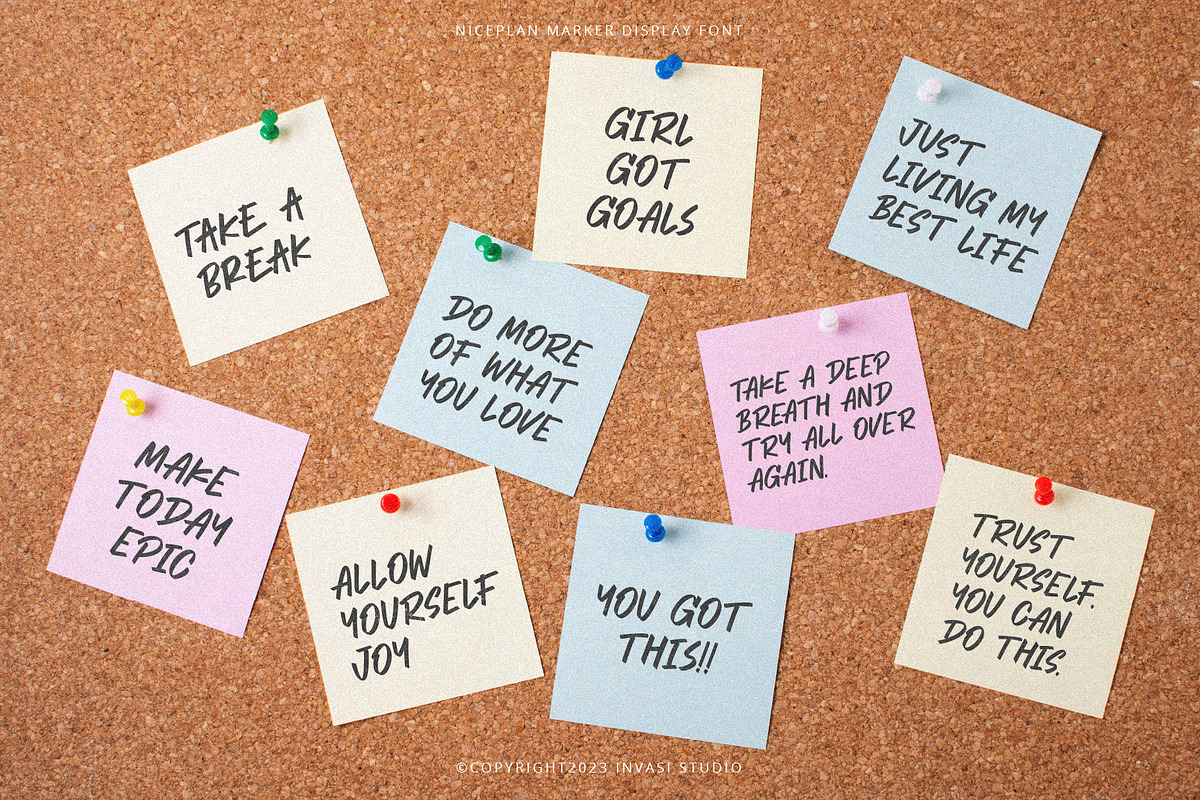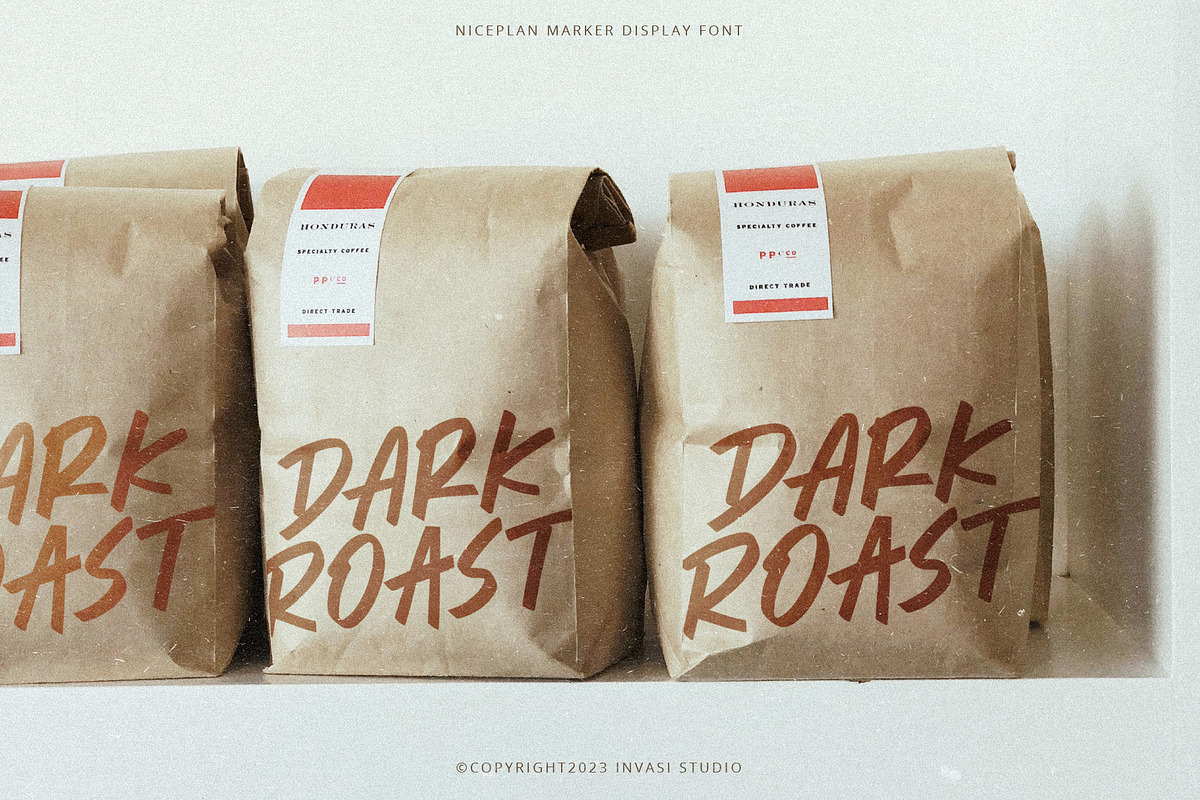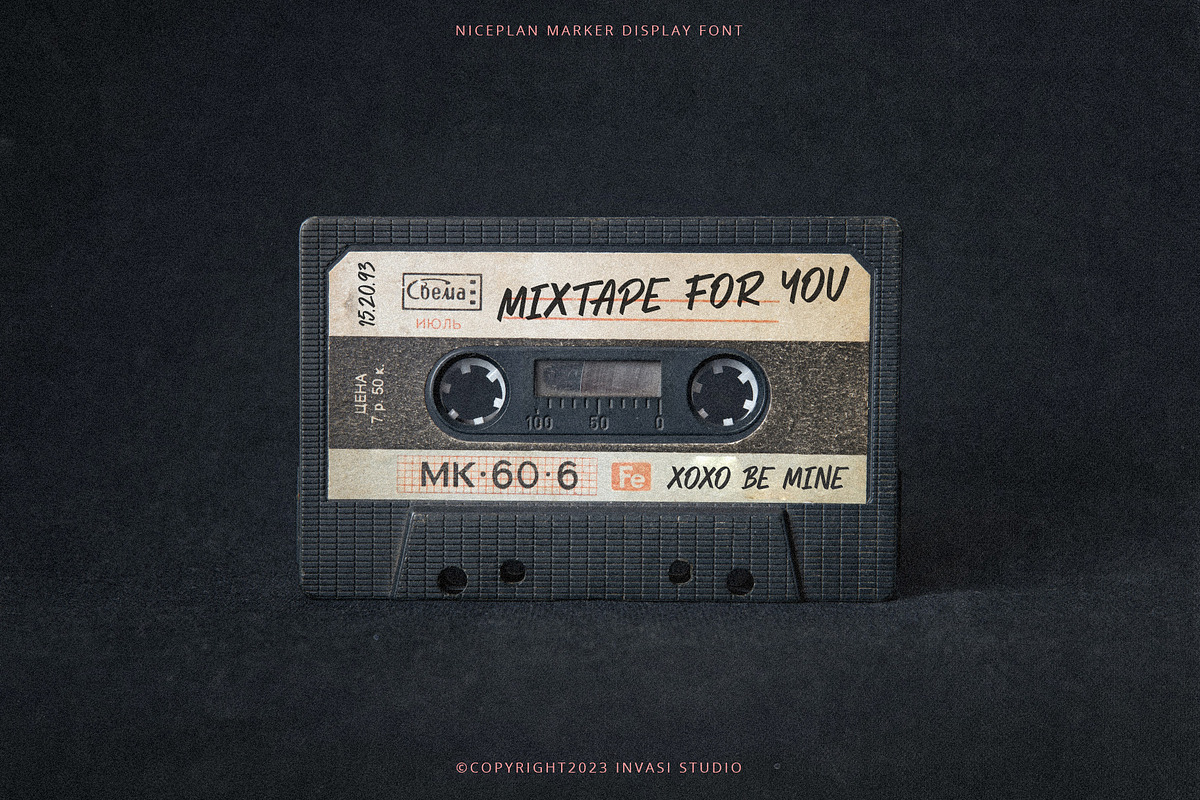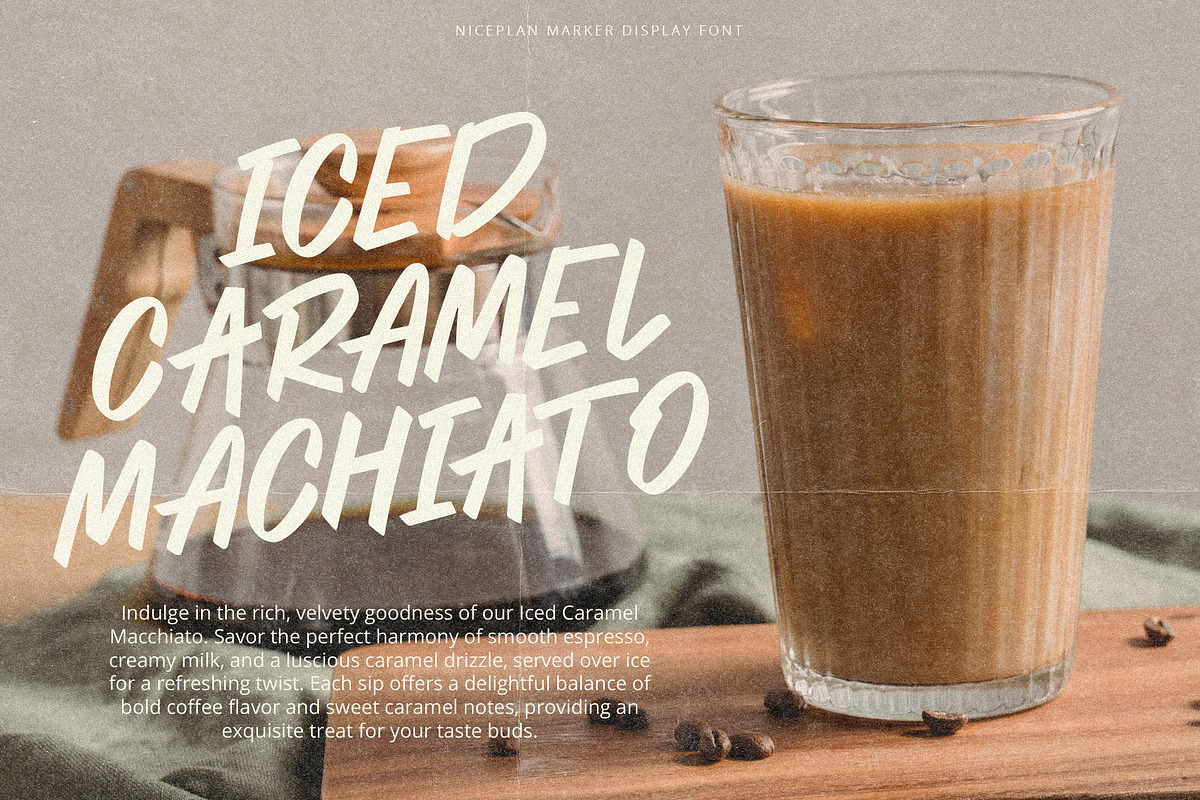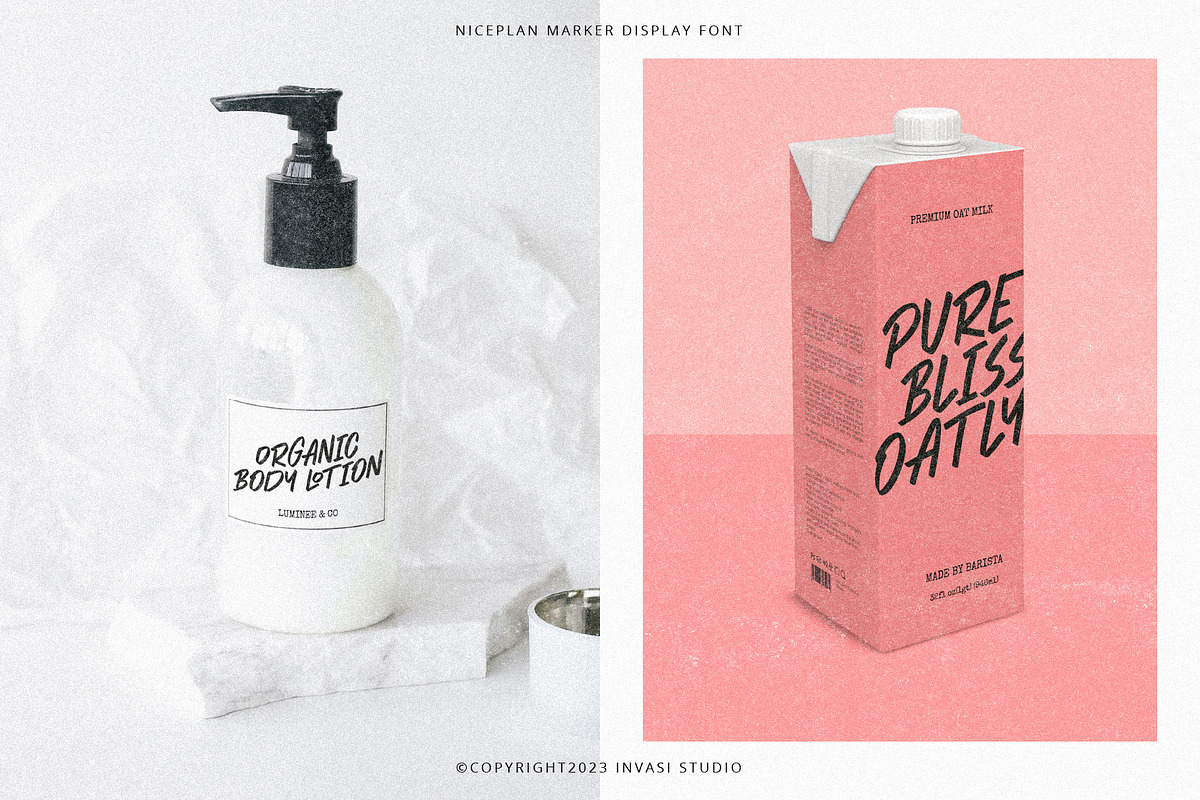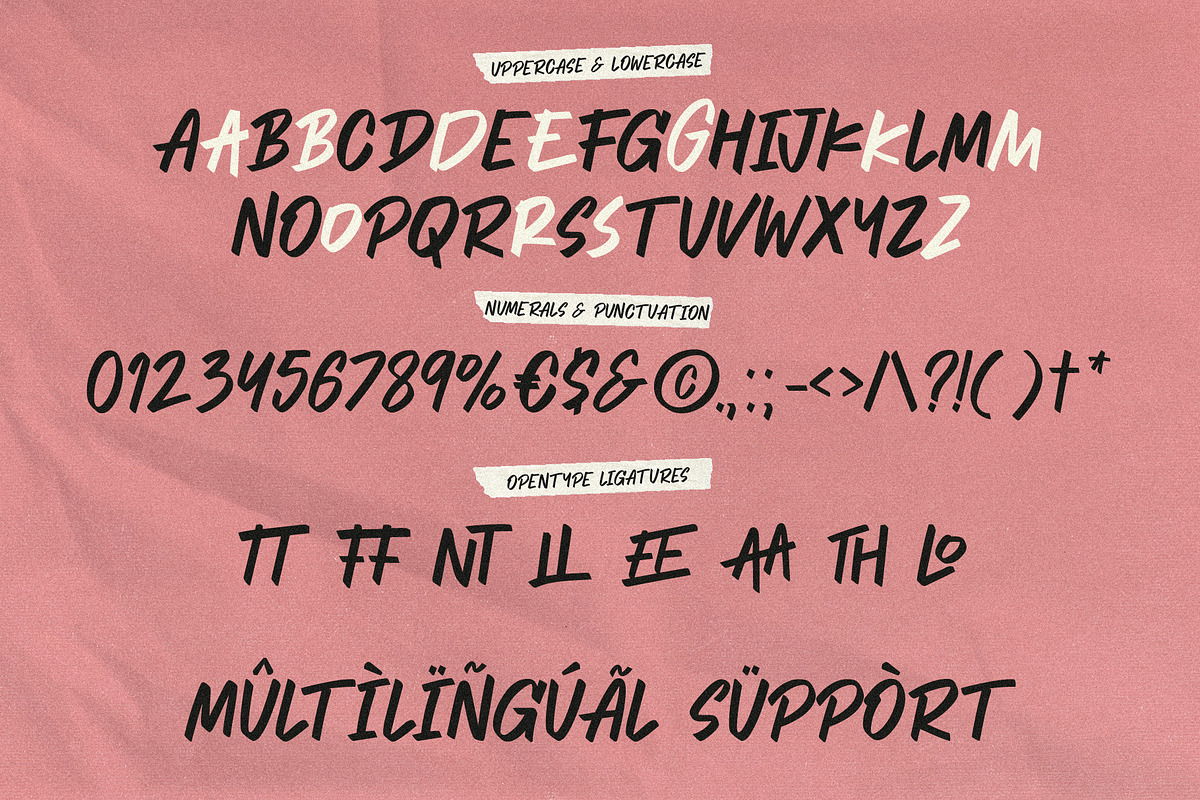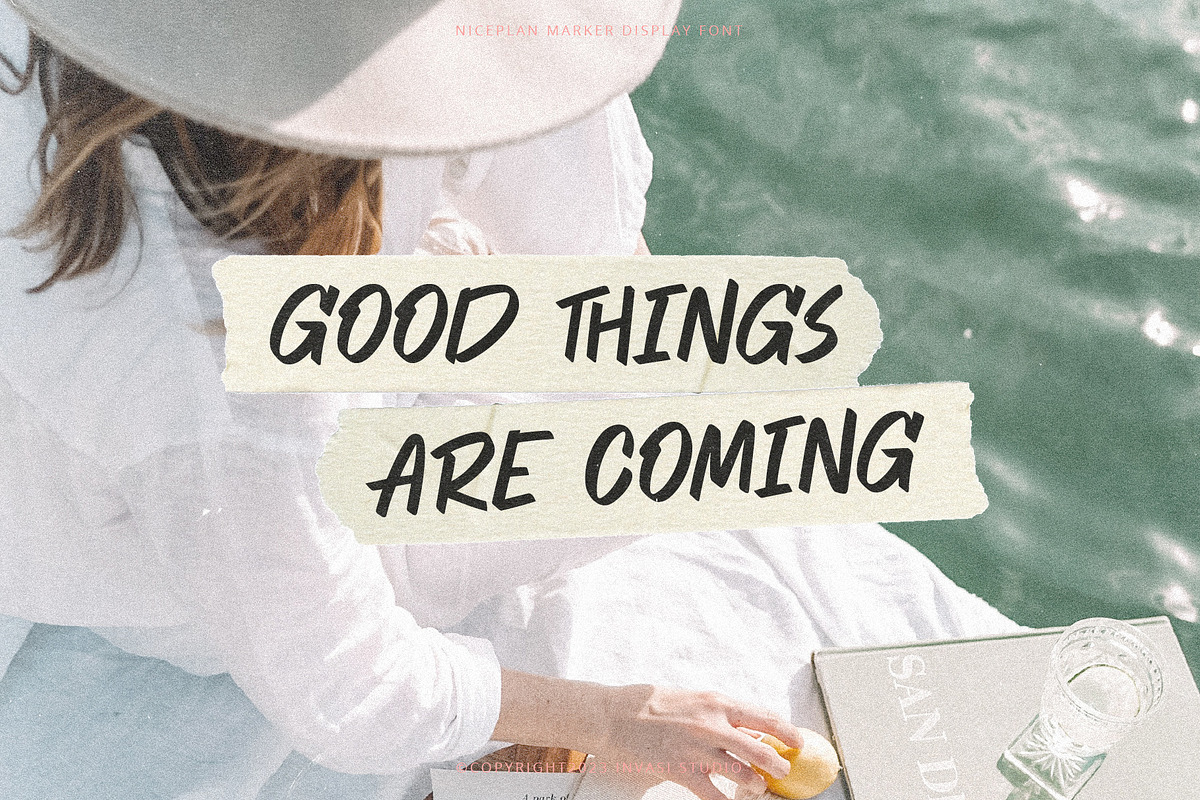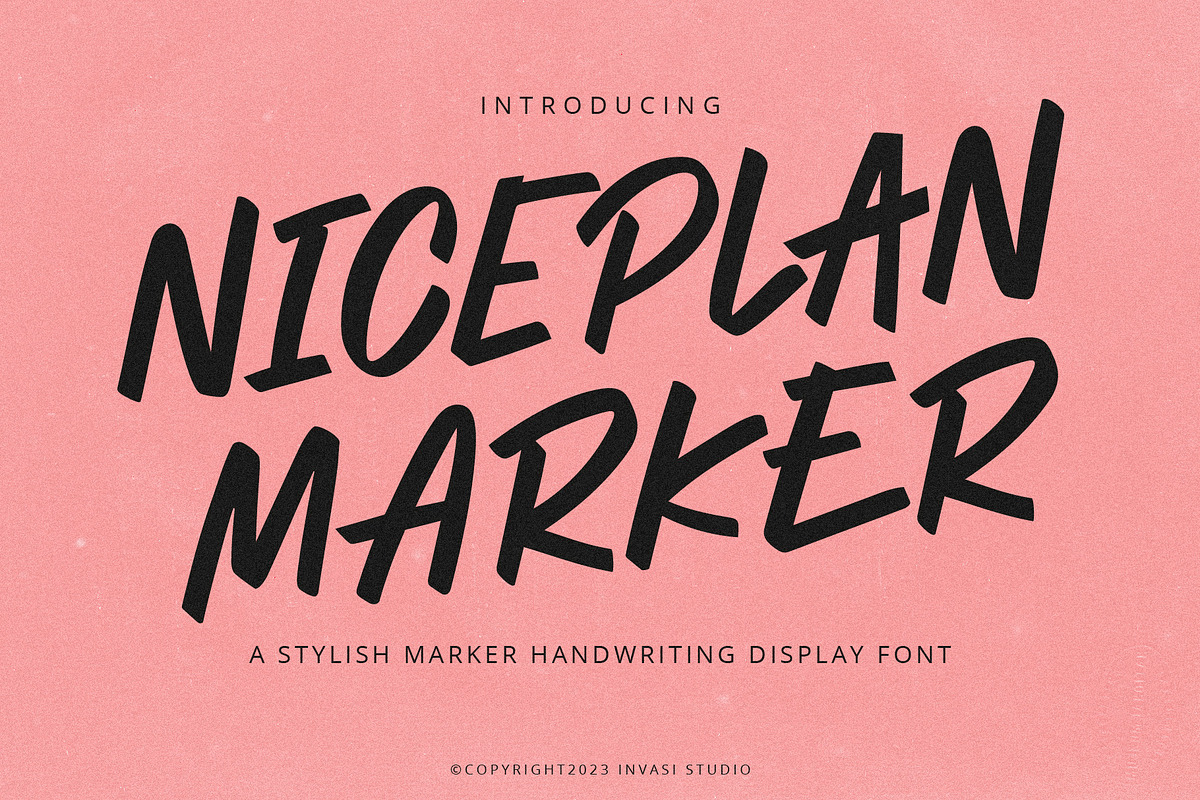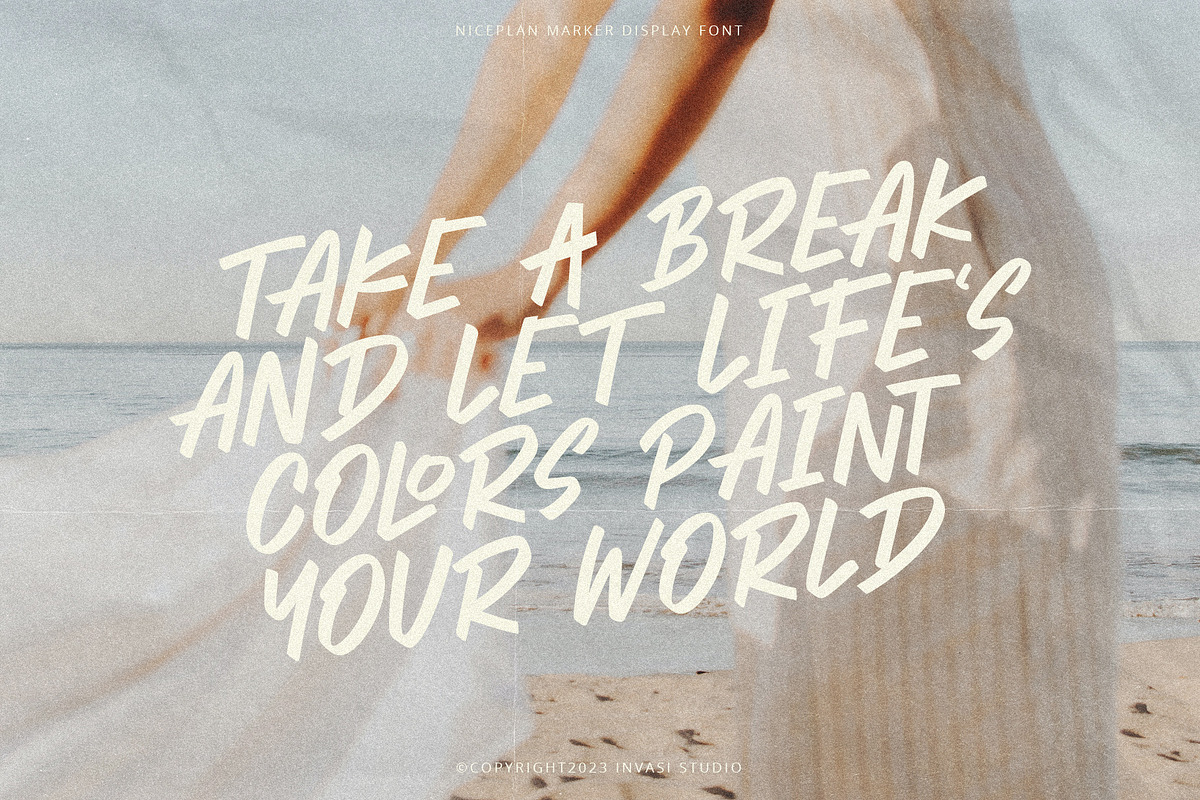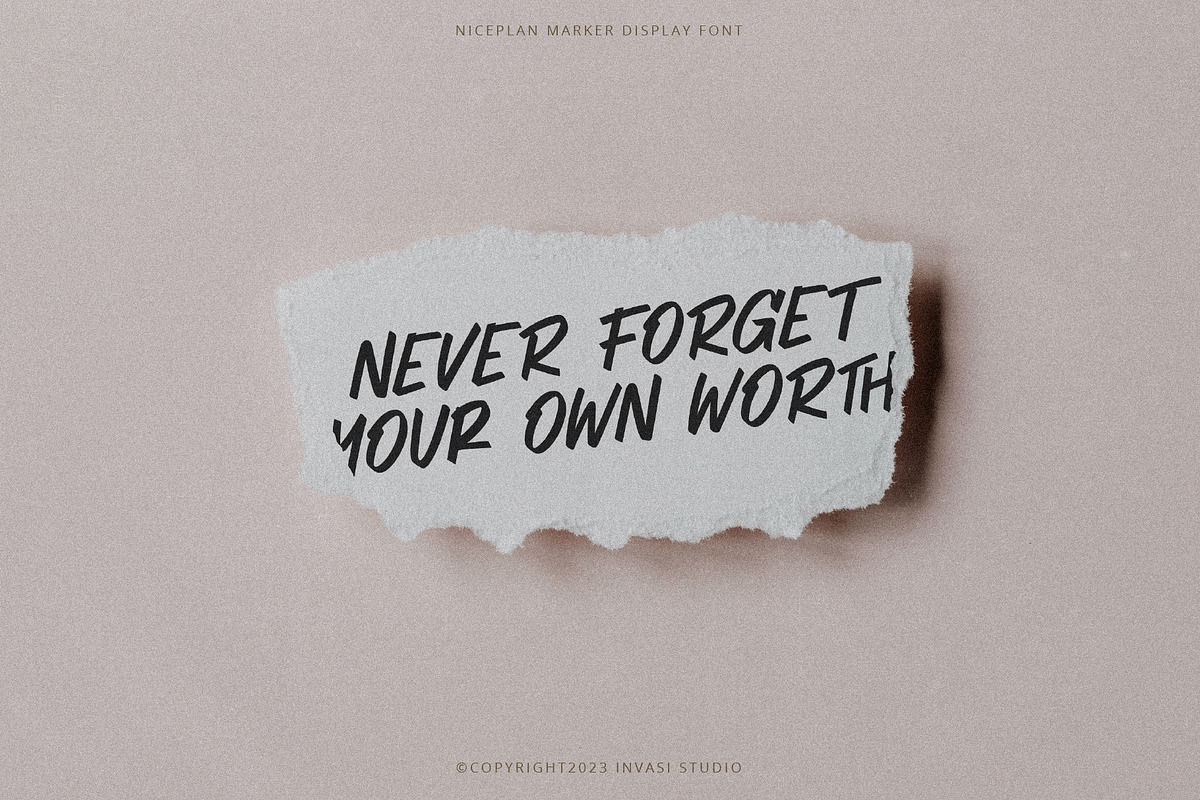
Niceplan - Marker Handwriting
Niceplan font is meticulously crafted to replicate the organic feel of handwritten marker notes. This font achieves a realistic and natural appearance with its authentic marker look and Opentype ligature feature. Niceplan also supports multilingual characters, making it versatile for various language requirements.
A perfect choice for adding a touch of authenticity and a natural vibe to your designs, Niceplan is ideal for display projects such as headings, logotypes, flyers, greeting cards, product packaging, book covers, and printed quotes. Embrace the charm of hand-drawn marker notes and bring a sense of warmth and personality to your design endeavors with Niceplan font.
- Multilanguage Supports 60+ Latin-based languages